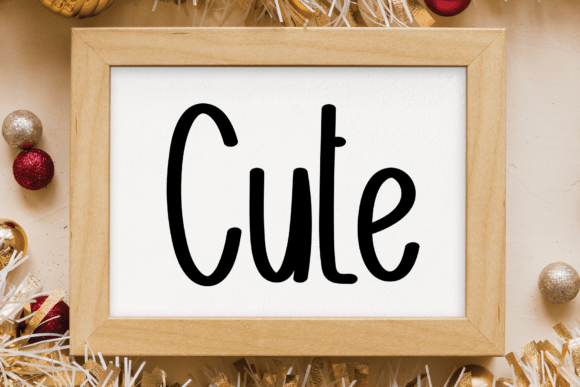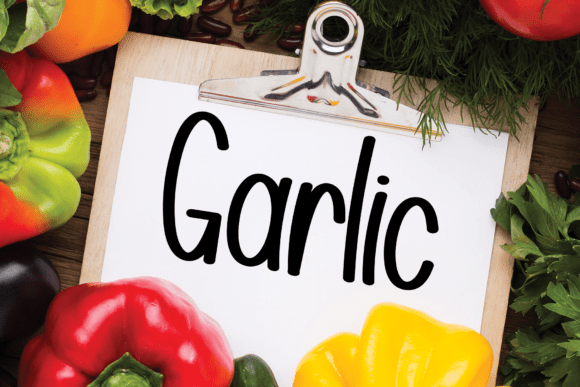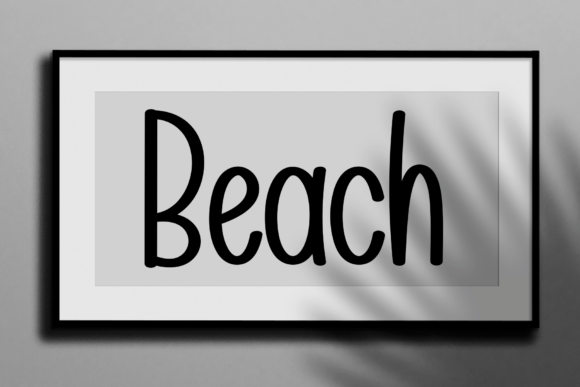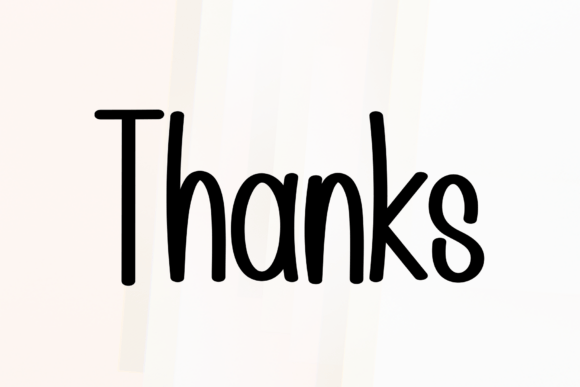
The Perfect Blend of Luxury and Casual: A Deep Dive into the Daylight Font
I’ll never forget the time I was working on a luxury brand’s wedding invitation suite, and I just couldn’t find the right font to tie everything together. The design needed to exude elegance, yet still feel approachable and casual. That’s when I stumbled upon the Daylight font, and it instantly became the missing piece to my design puzzle. In this article, I’ll share my experience with this beautiful handwritten font, its features, and how to make the most of it in your designs.
An Honest Review of Daylight Font
What I Love About Daylight Font
- ✨ The relaxed and sporty feel that makes it perfect for a wide range of design projects, from branding to wedding supplies.
- ✅ The elegant, yet casual vibe that adds a touch of sophistication to any design.
- 💫 The marker-drawn feel that gives it a unique, handcrafted look.
- 🎨 The versatility to work well in various design contexts, including logos, lookbooks, and marketing promotions.
While Daylight Font is an excellent choice for many design projects, there are a few things to keep in mind:
- 🤔 It may not be the best fit for very formal or traditional designs, as it leans more towards a casual, modern feel.
- ⚠️ Some users have reported issues with kerning, but this can often be adjusted manually in design software.
The Story Behind Daylight Font
Daylight Font was designed by a talented type designer who wanted to create a font that captured the essence of a relaxed, yet luxurious feel. The designer’s inspiration came from a mix of traditional marker-drawn lettering and modern digital typography. The result is a font that feels both elegant and approachable, making it perfect for a wide range of design projects.
| Font Name | Daylight Font |
| Author | Berkah Shop |
Q: What type of designs is Daylight Font best suited for?
A: Daylight Font is versatile and can be used for a variety of designs, including branding, logos, wedding supplies, greeting cards, fashion, lookbooks, and marketing promotions.
Q: Is Daylight Font suitable for body text?
A: While Daylight Font is beautiful, it’s best used for headlines, titles, and short paragraphs. Its elegant, yet casual feel makes it less suitable for long-form body text.